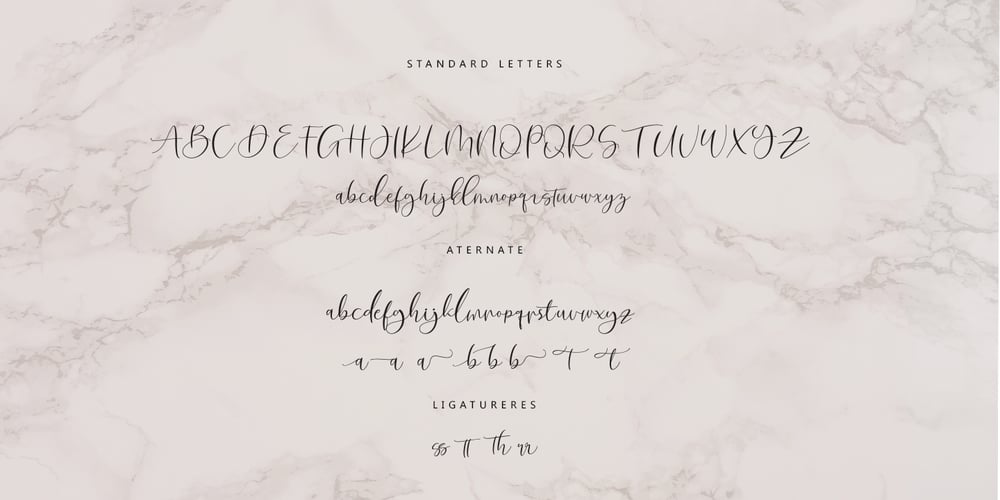
Robert Hunster Font Family was designed by Munawir and published by Mightype. Robert Hunster contains 1 styles and family package options. Robert Hunster Script is a modern calligraphy font with the current handwriting style, this font is perfect for branding, wedding invites, magazines, mugs, business cards, quotes, posters, and more, you can try first if you want to buy this font. Robert Hunster Script is equipped with 369 glyphs. and by having many of these glyphs there will be able to choose the letters according to your liking, lots of variations and options for each letter, so you can customize on your design choices. With pleasure and happiness, in this font package you will get: – Robert Hunster Script OTF To use a variety of letters, you need a program that supports OpenType features such as Adobe Photoshop Cs / Adobe Photoshop CC, Adobe Illustrator CS / Adobe Illustrator CC, Adobe Indesign and Corel Draw and many more programs that support OpenType. If you do not have a program that supports OpenType, you can access all the alternate glyphs using Font Book (Mac) or Character Map (Windows) If you have any question, do not hesitate to contact me by email mightype89@gmail.com Thanks and happy designing 🙂